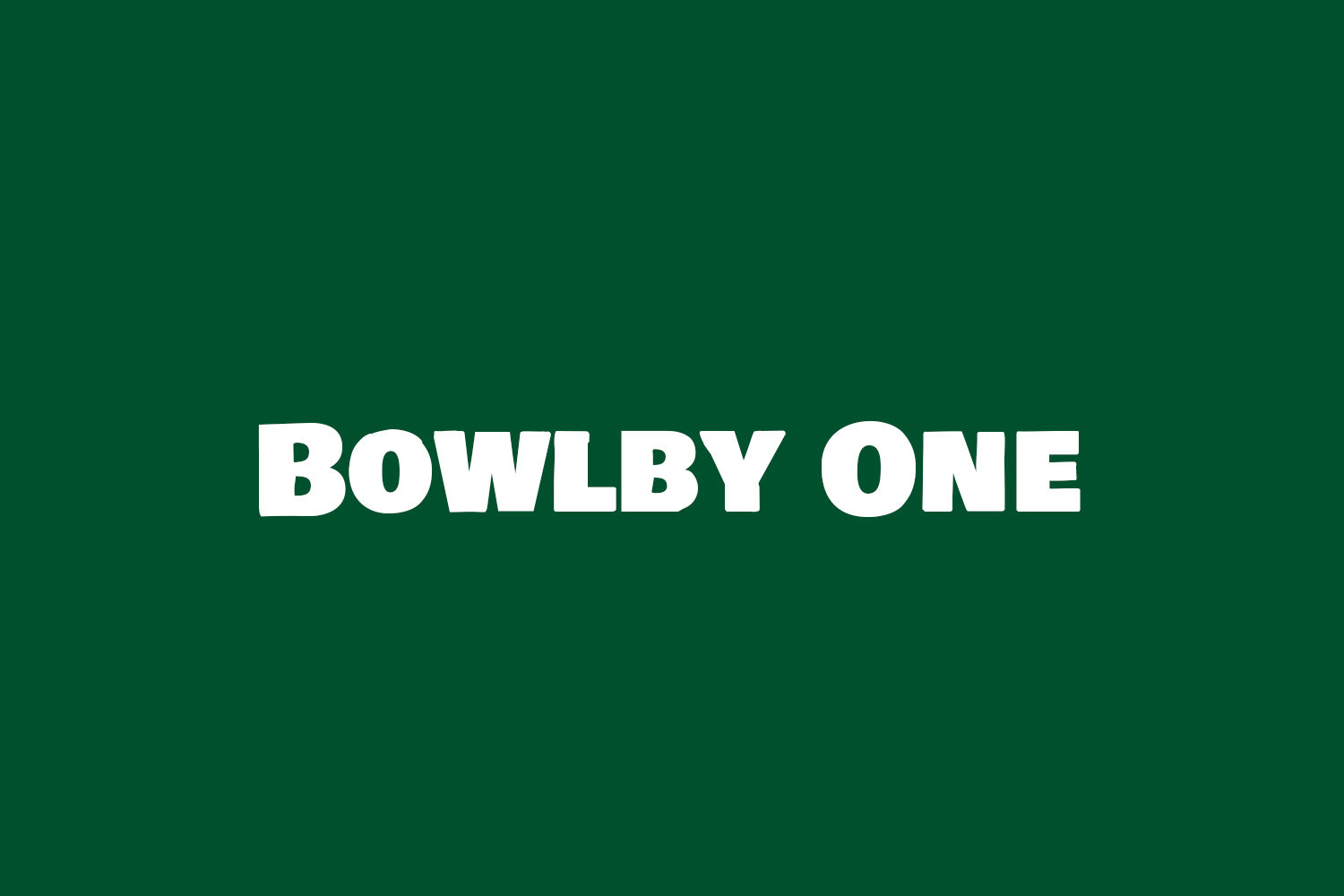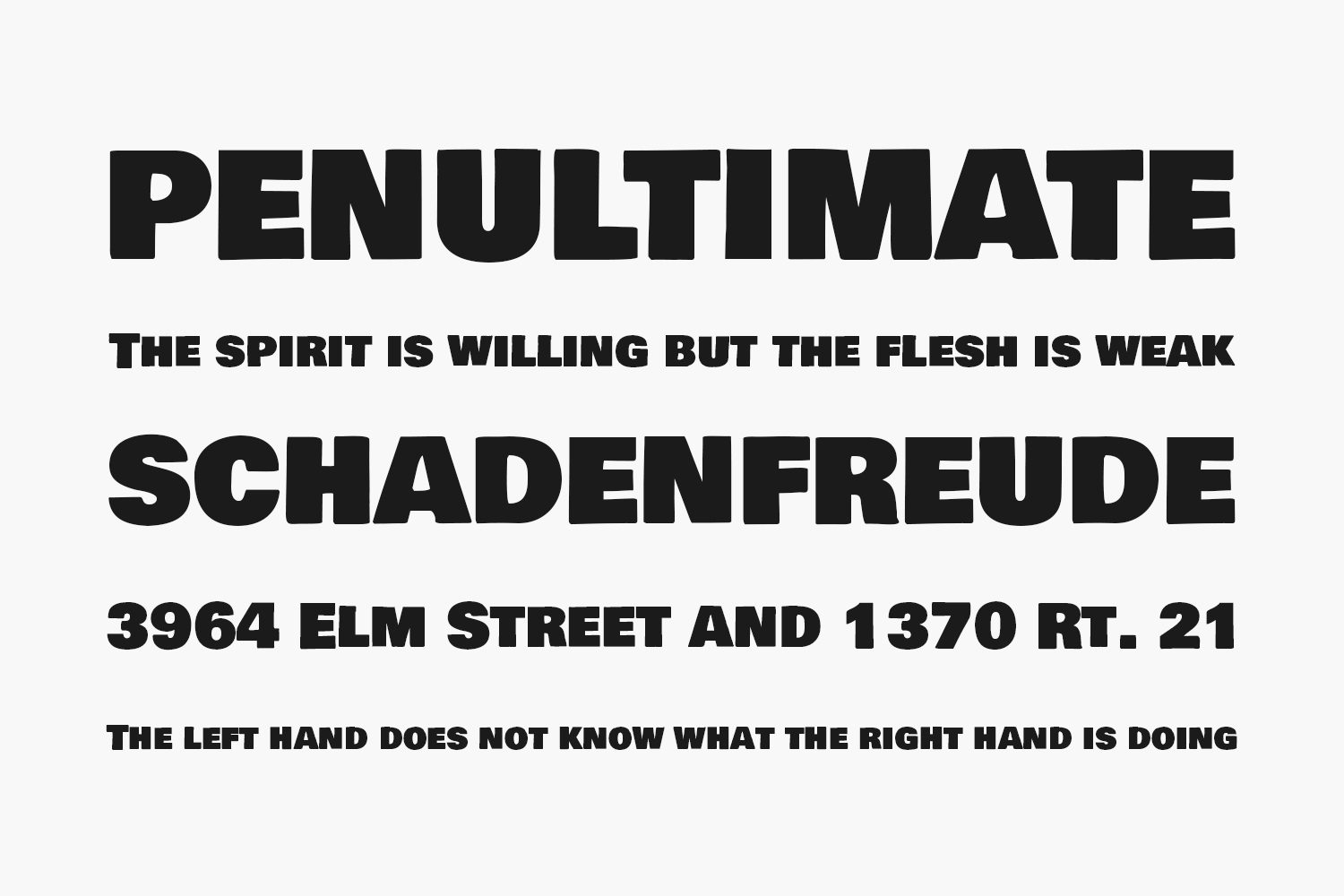
Bowlby Free Font Family has been designed for use as a utilitarian, all caps display font. A version with lowercase characters is also available. It’s forms are a fusion of a handfull of designs scanned from old, early Twentieth Century type specimens. Bowlby is perfect for big Bold Headlines and displays that need a slightly roughened look. Bowlby is a webfont, designed to be used freely across the internet by web browsers on desktop computers, laptops, cloud systems and mobile devices.
Designed by Vernon Adams